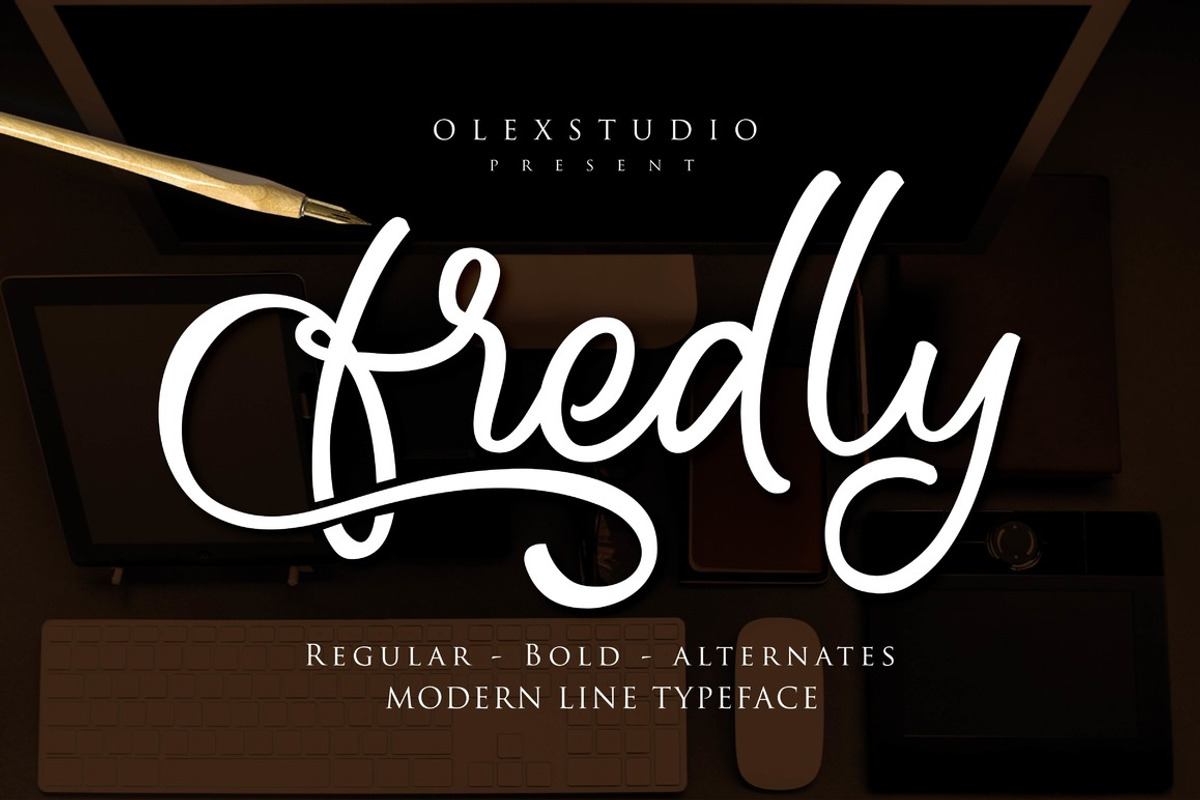
Friendly, modern, and effortlessly stylish, Fredly Font Free Download is a clean and versatile typeface perfect for a variety of design projects. Ideal for branding, logos, social media graphics, website headings, and print materials, Fredly brings a contemporary edge while maintaining a welcoming and approachable feel.
With its smooth curves and clear, readable letterforms, Fredly is highly adaptable for both large headlines and smaller body text. Its friendly appearance makes it a perfect choice for designs that need to be both professional and personal.